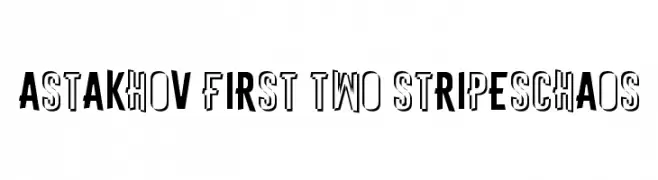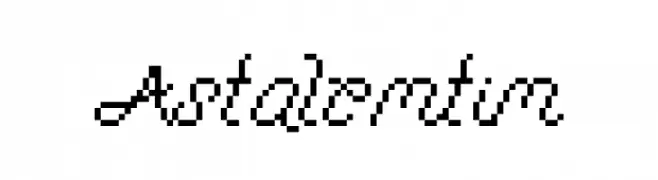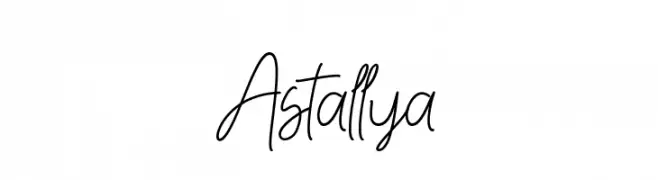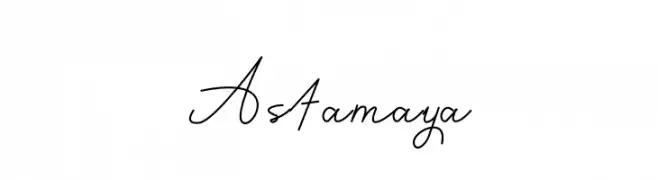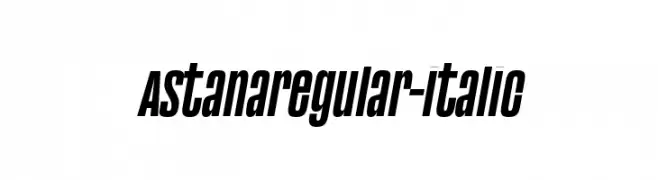
A modern, striped font with bold, geometric characters.
A bold, decorative font with a double-stripe shadow effect for a 3D look.
A bold, dynamic font with a mix of solid and outlined characters, perfect for striking designs.
A decorative dot matrix font with a retro digital display style.
A modern, dotted font with a geometric and digital aesthetic.
A pixelated, monospaced font with a retro digital style.
A lively and fluid handwritten font with elegant, flowing letterforms.
A graceful script font with flowing, cursive strokes and elegant character design.
An elegant script font with flowing, continuous strokes and graceful curves.
A bold, italic font with a modern and dynamic style.